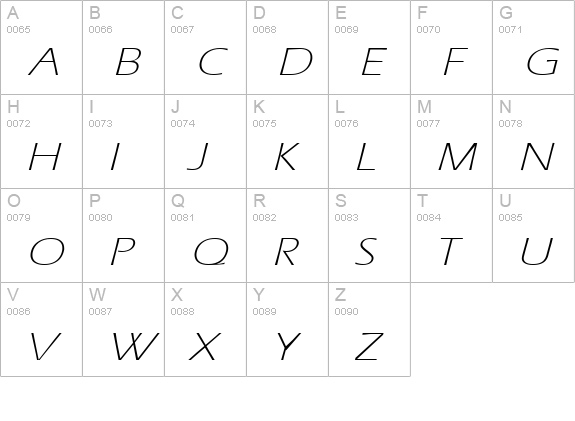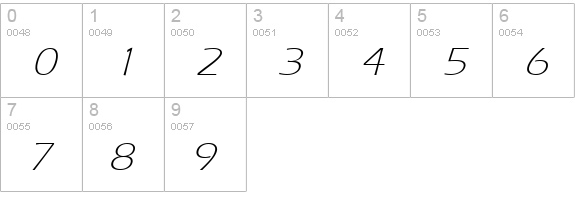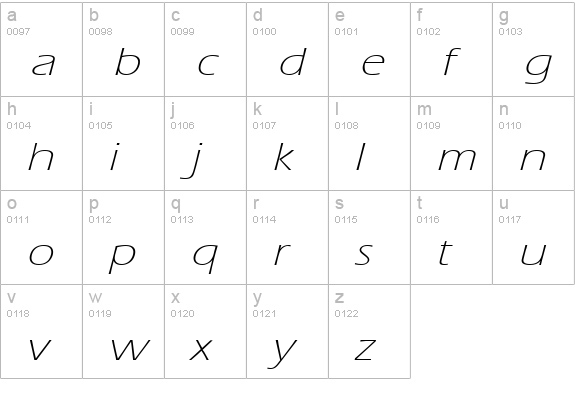
Eric Lite Extended Italic is a distinctive, extended-width, italic variant in the Eric typeface family \xE2\x80\x94 well suited to design and typography projects.
Introducing Eric Lite Extended Italic font - a sleek and modern typeface that exudes sophistication and elegance. This font strikes the perfect balance between contemporary design and timeless appeal, making it an ideal choice for a wide range of creative projects. The extended italic style adds a touch of flair and dynamism to your text, making it stand out and command attention. And the best part? Eric Lite Extended Italic font is completely free to download at FontsMarket.com! You can elevate your designs without breaking the bank, thanks to this high-quality and versatile font. Whether you're working on a branding project, website design, or any other creative endeavor, Eric Lite Extended Italic font will add a touch of style and professionalism to your work. Don't miss out on this fantastic opportunity to enhance your projects with a premium font that won't cost you a penny. Download Eric Lite Extended Italic font today and take your designs to the next level!